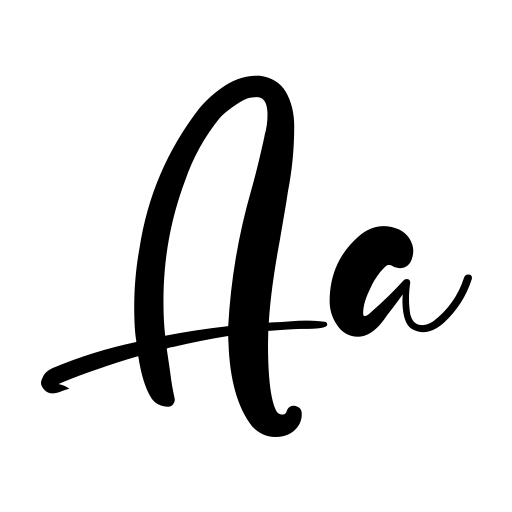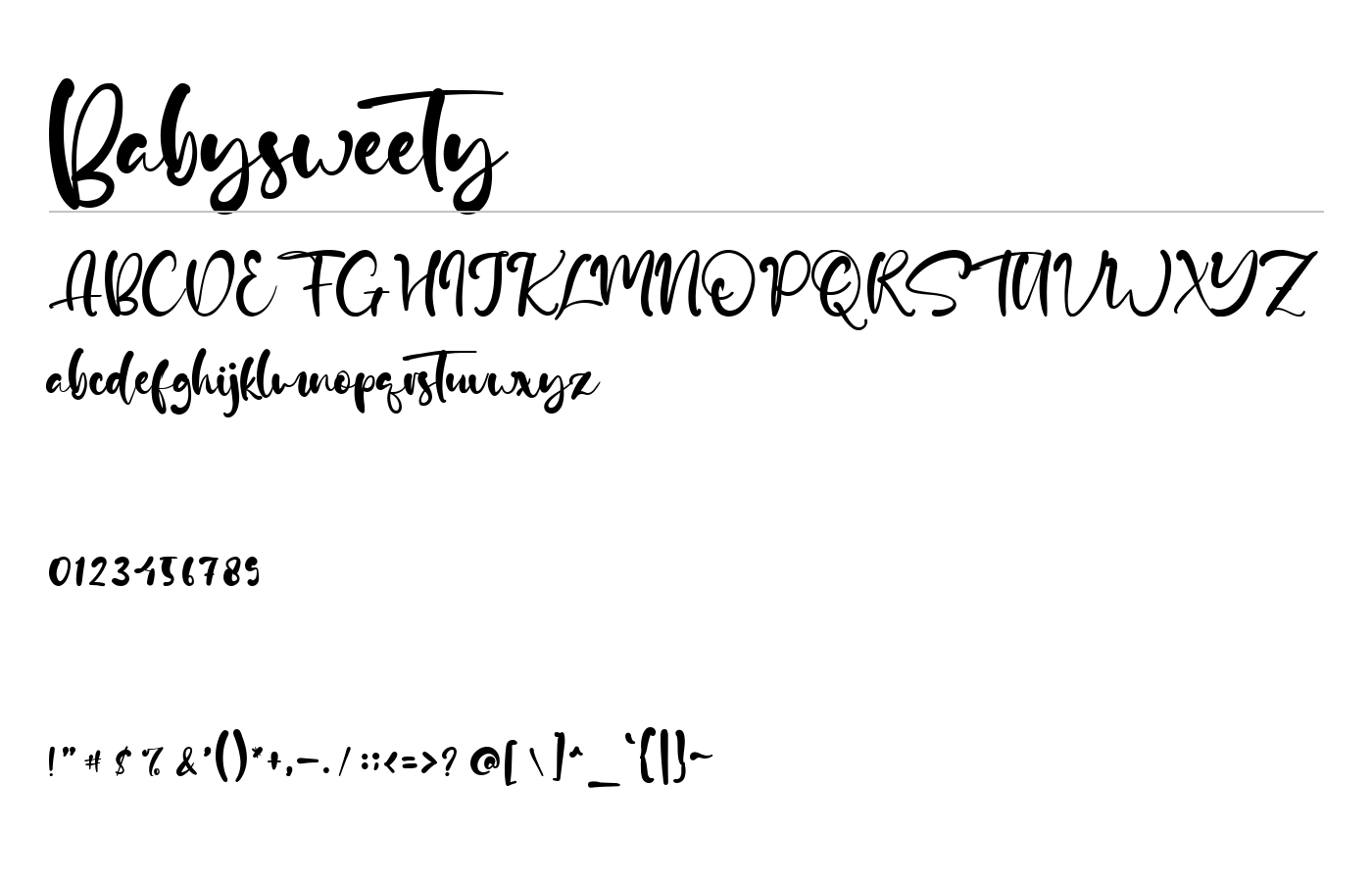
Babysweety is a playful and elegant script font with smooth, flowing strokes that give it a hand-drawn feel. Its bold weight and lively letterforms, combined with a mix of thick and thin strokes, make it perfect for adding a warm, personal touch to branding, invitations, and packaging. This font works especially well in creative and feminine designs, bringing a friendly and charming personality to headlines and decorative text.
Babysweety Font
About Babysweety Font
| Font family | Babysweety Font |
| Designer | VZtype |